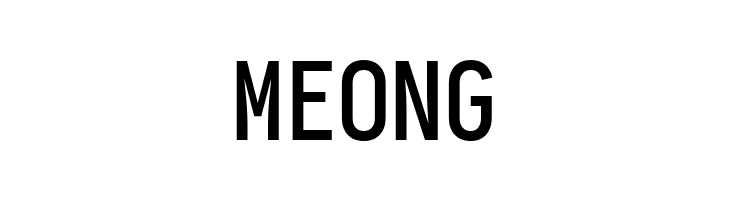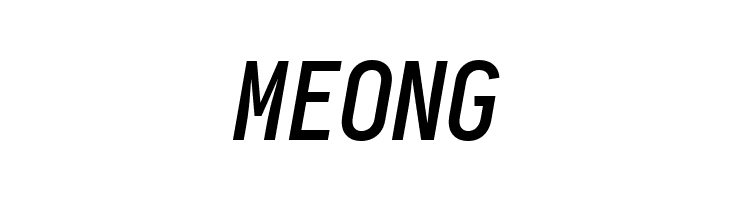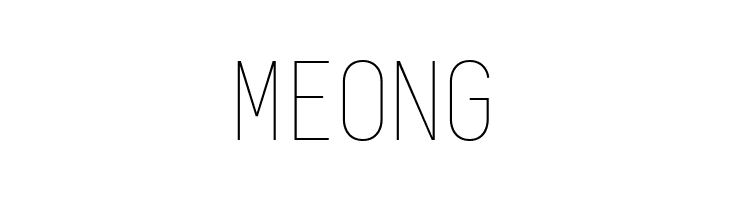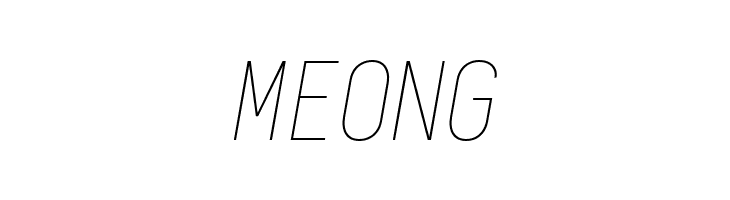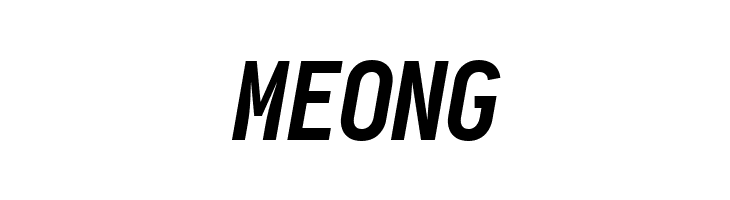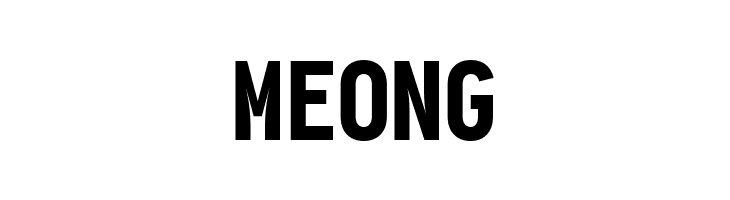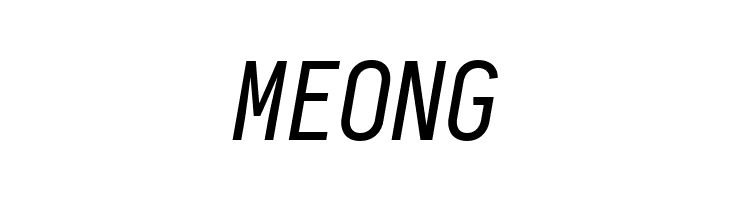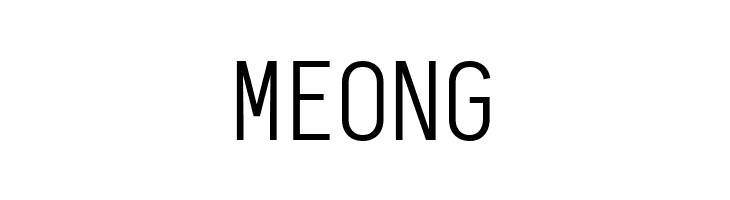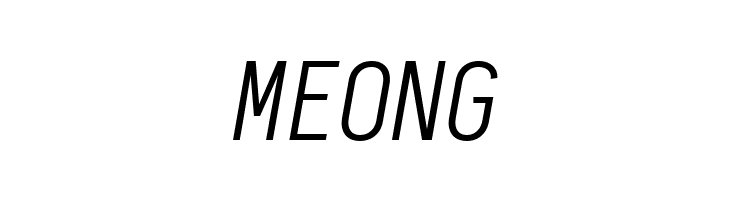
A clean, monospaced font with a modern aesthetic and excellent readability.
A bold, geometric font with rounded edges and consistent width.
Bold, italicized font with a strong, dynamic presence.
A bold, monospaced sans-serif font ideal for coding and headlines.
A bold, italicized font with a modern and dynamic style.
A modern, monospaced font with an extra light weight and geometric design.
A clean, extra-light italic monospaced font with a modern aesthetic.
A modern, monospaced italic font with medium contrast and clean lines.
A clean, monospaced font with a modern and geometric design.
A modern, light, and italic sans-serif font with a clean design.
A clean, monospaced font with geometric influences and consistent character width.
A modern, italic sans-serif font with medium contrast and balanced spacing.
A thin, monospaced font with a minimalist and modern design.
A thin, italicized monospaced font with a modern and minimalist design.